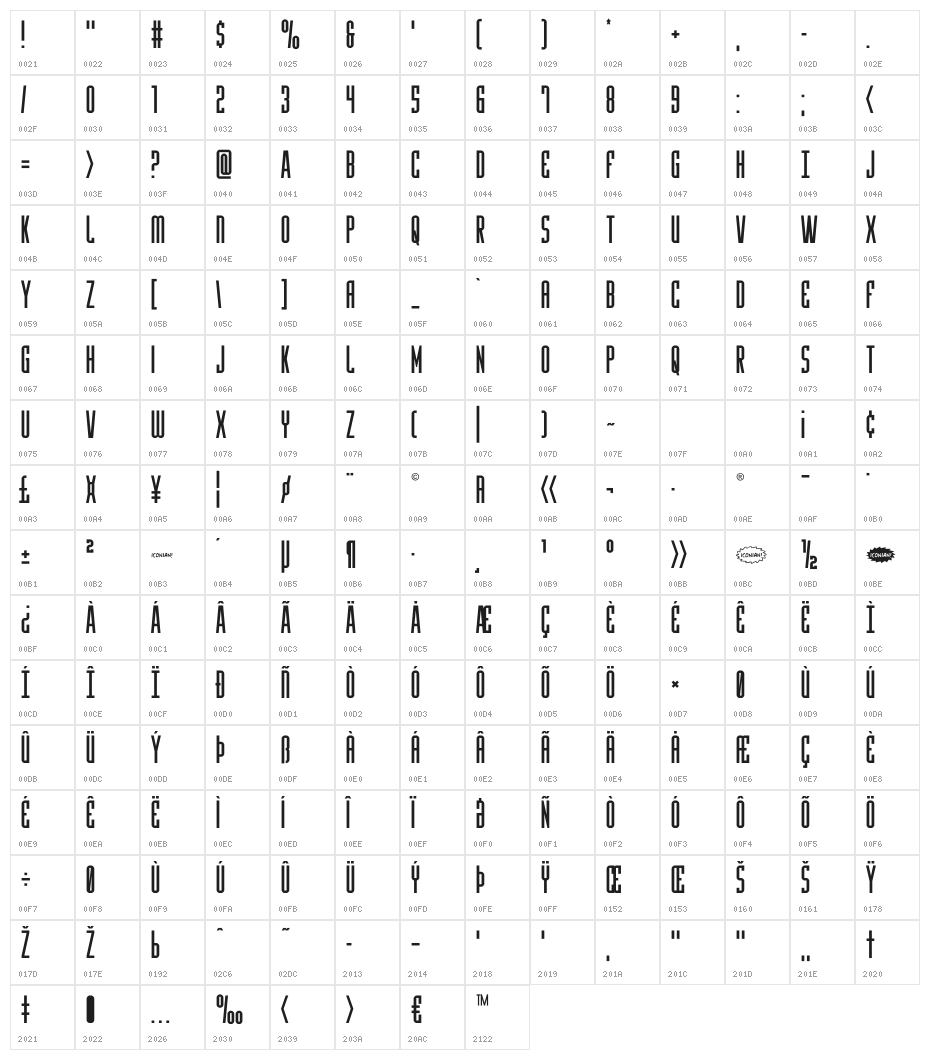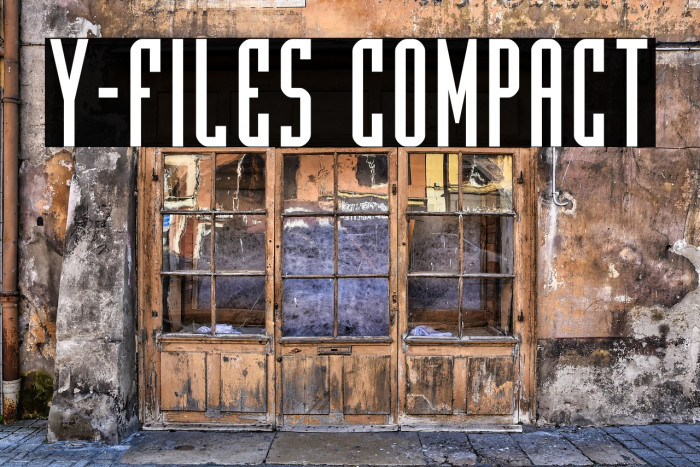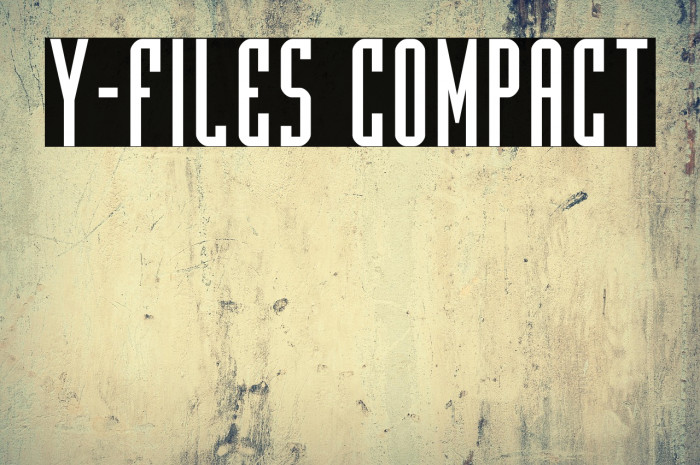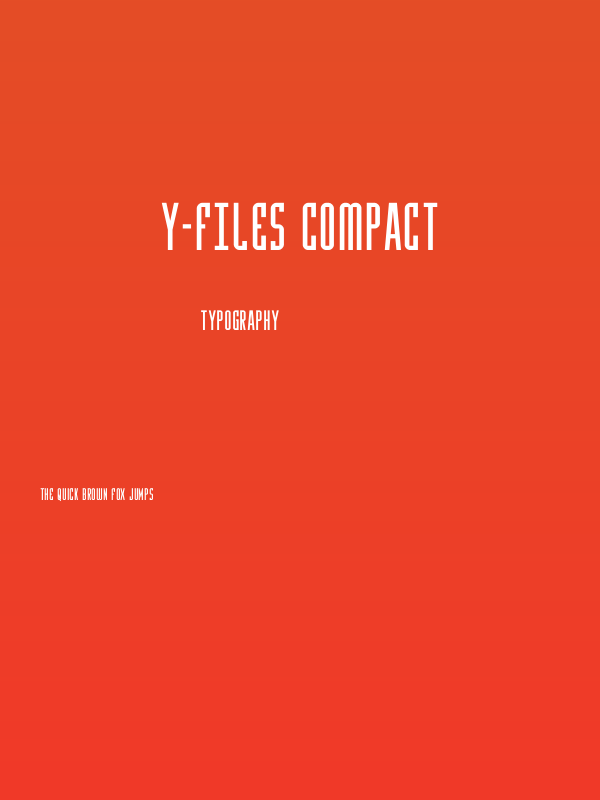
Y-Files Compact Font
| Peso | Condensed |
| Caso d'uso | Headlines, Branding, Posters |
| Progetti proposti | Ideal for posters, headlines, branding, and any design requiring a modern and space-efficient typeface. |